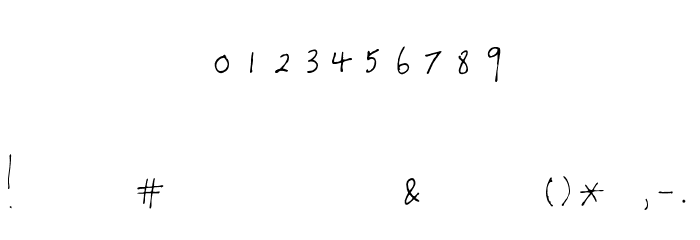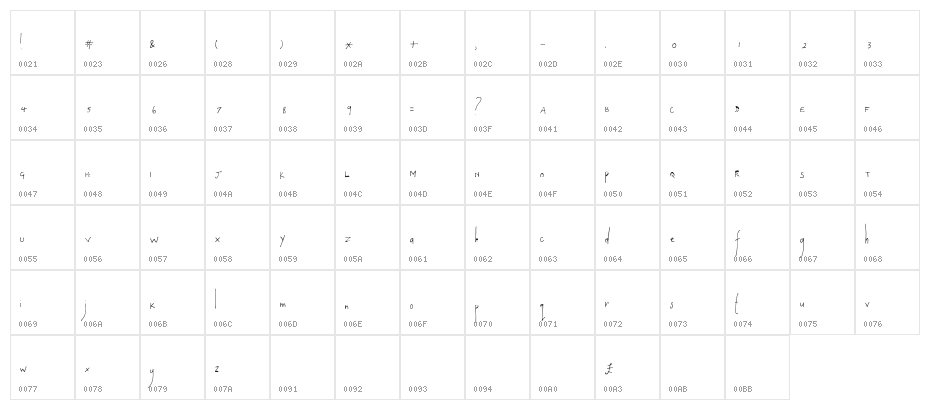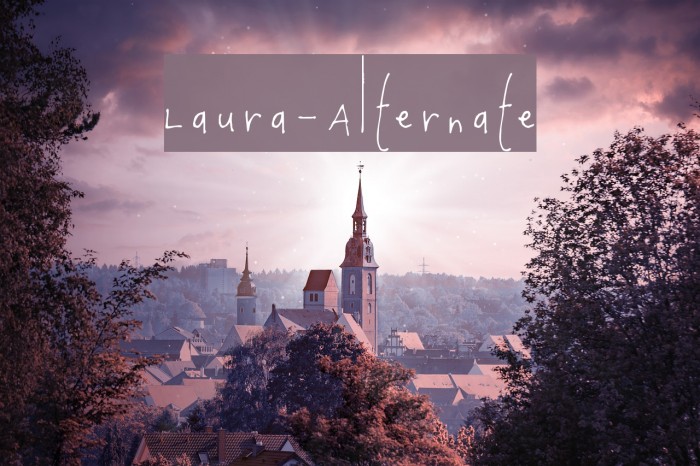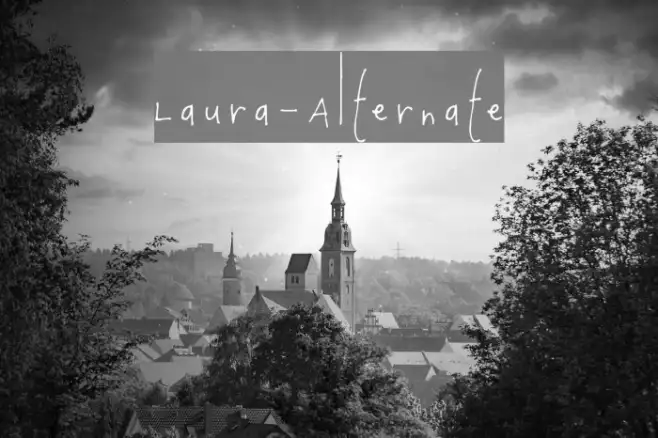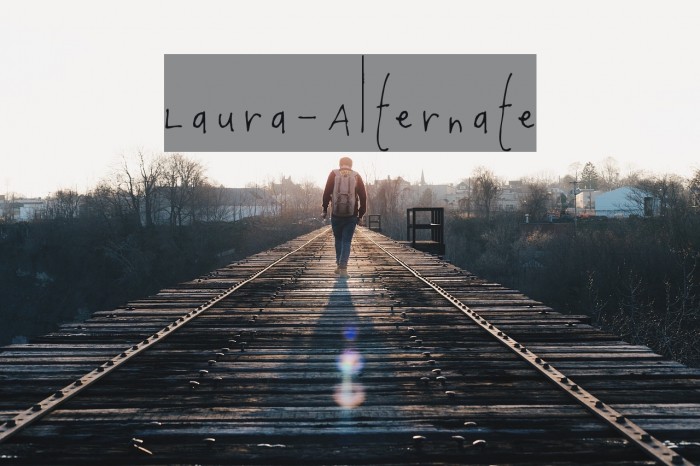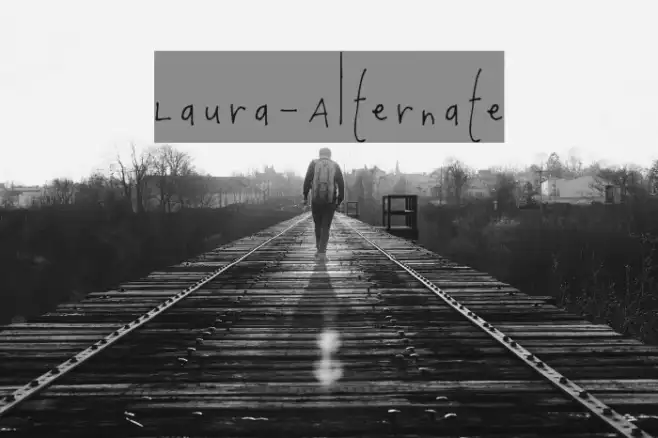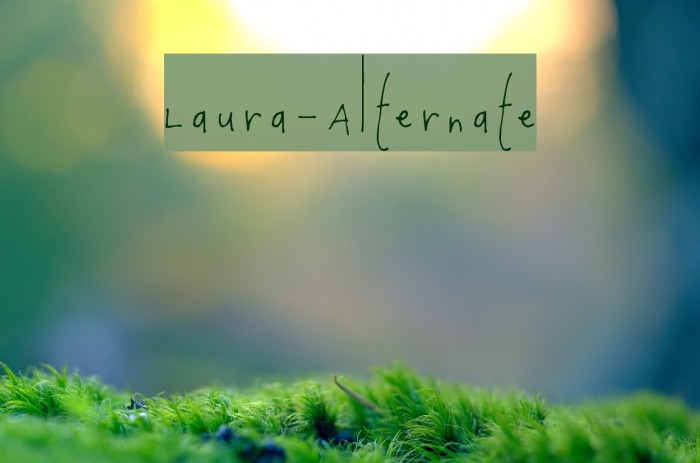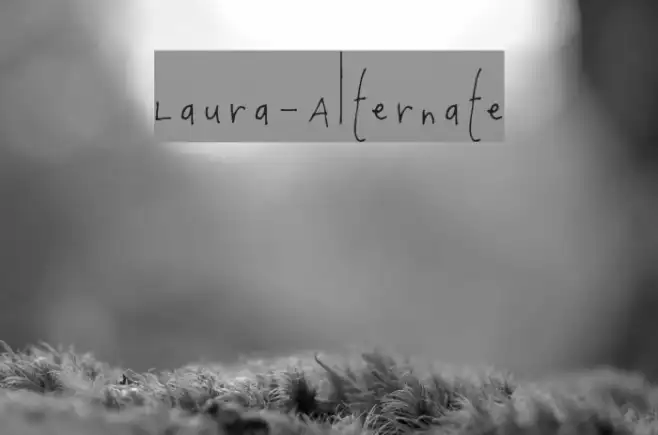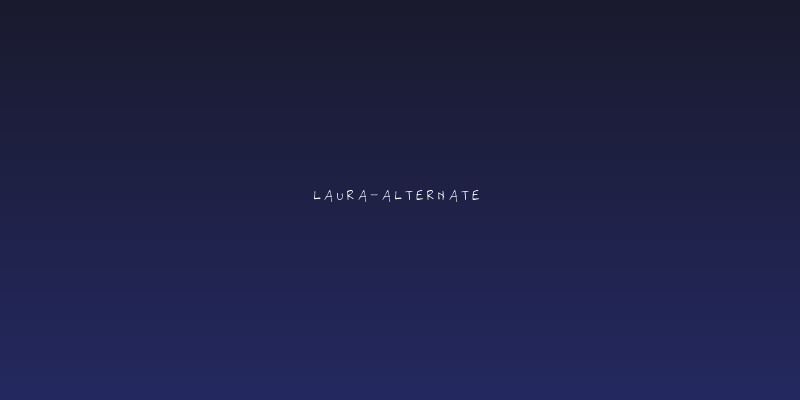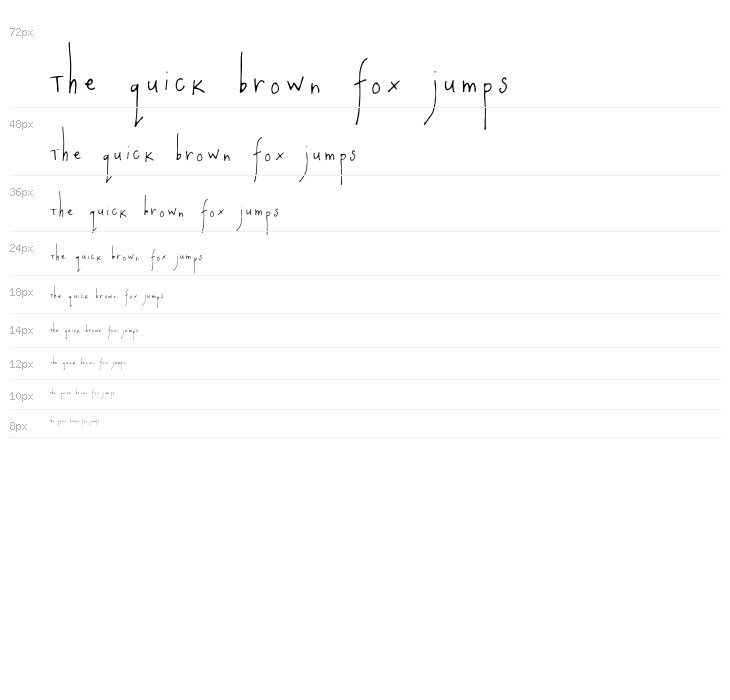
Laura-Alternate Font
Laura-Alternate Description
This font exhibits a playful and whimsical handwritten style, characterized by its irregular and slightly uneven strokes. The letters are tall and narrow, with a casual, informal appearance that suggests a personal touch. The uppercase letters maintain a consistent height, while the lowercase letters vary in size, adding to the font's quirky charm. The numerals are simple and align well with the overall style, while the special characters retain the same playful quality. This font's unique personality makes it stand out, offering a sense of individuality and creativity.
| Proposed Projects | Ideal for creative projects such as greeting cards, invitations, children's books, or personal branding materials where a personal touch is desired. |